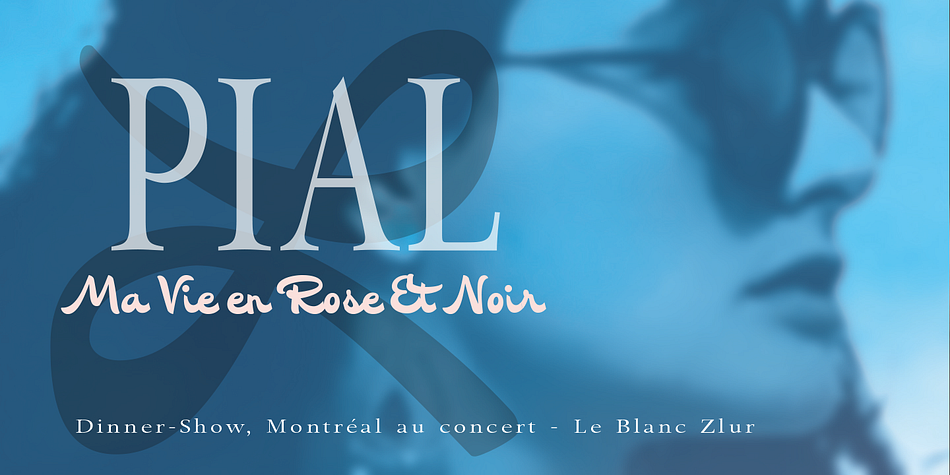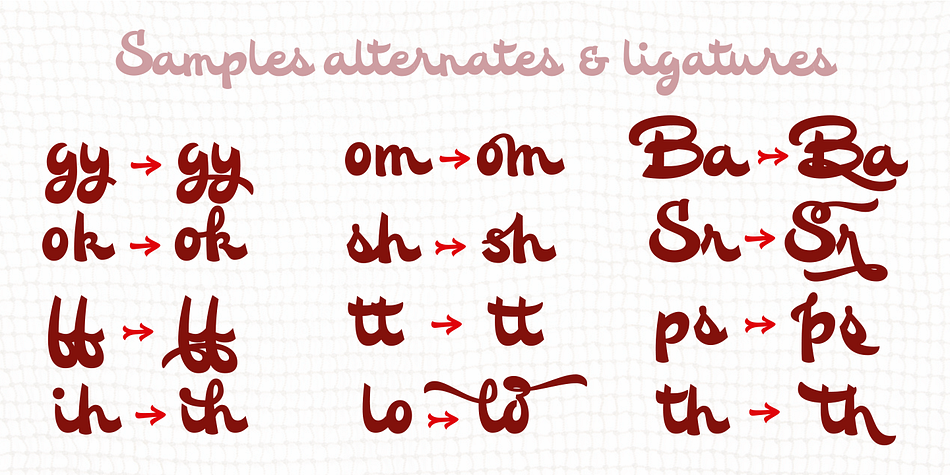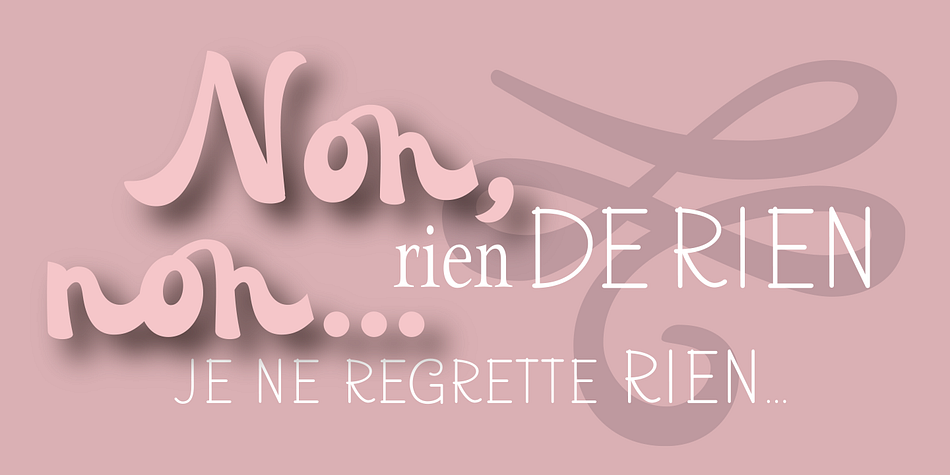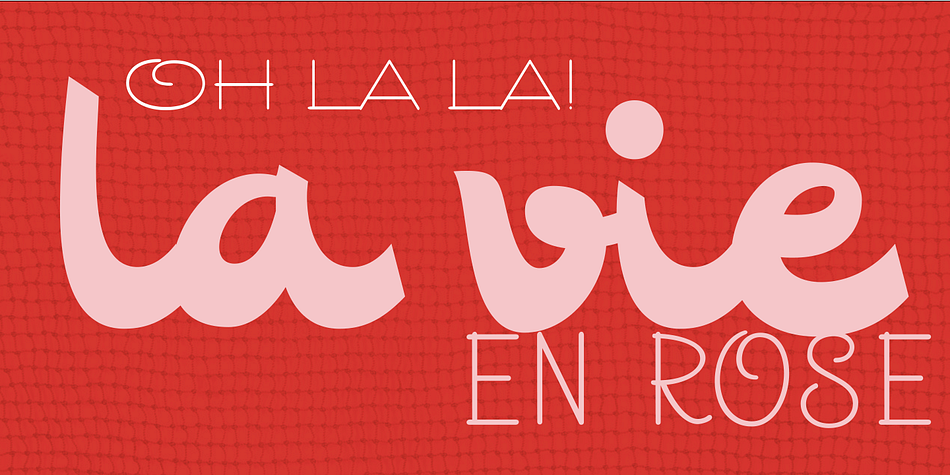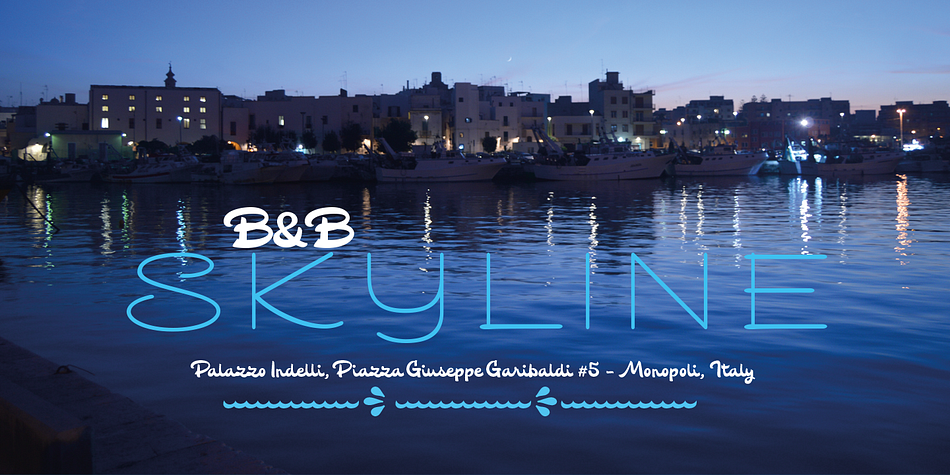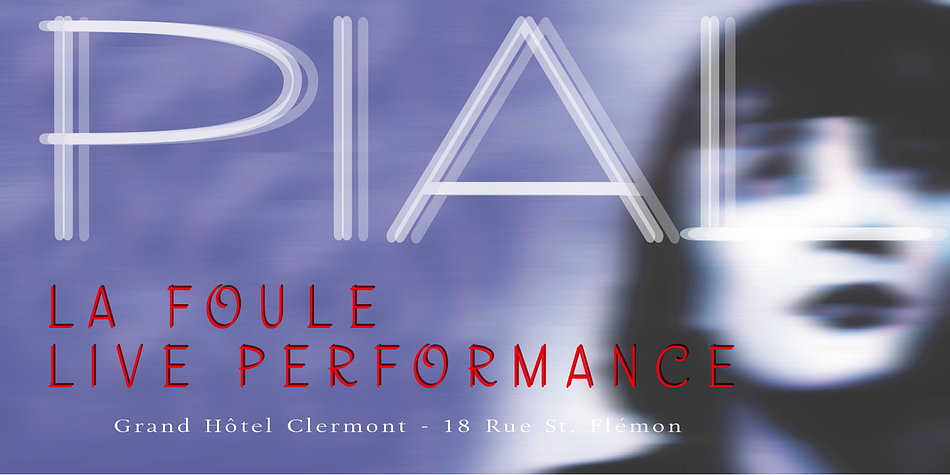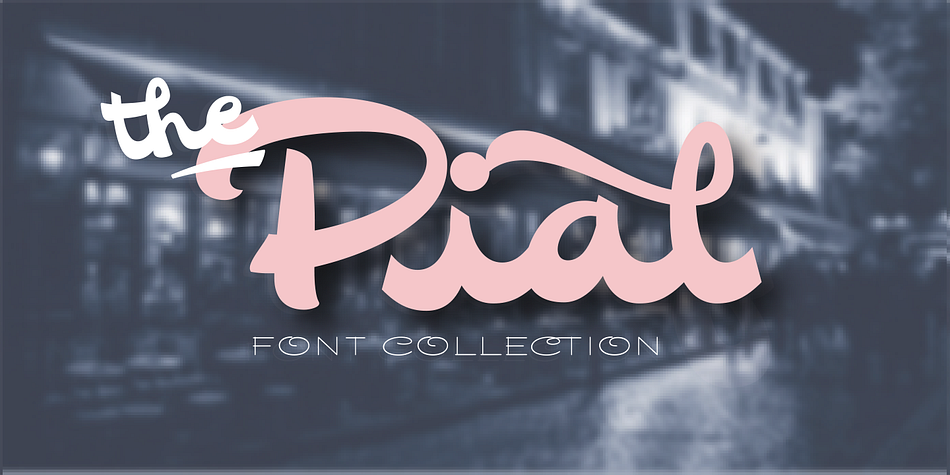
Designed by Carine de Wandeleer, Pial is a multiple classification font family. This typeface has six styles and was published by Eurotypo.
Pial fonts Family includes: Pial Regular that is totally hand-designed, casual and youthful, with lines that sometimes swell extremely, contain 546 glyphs with many stylistic variations, swashes and ligatures.
Pial Sans Regular and Expanded, also hand-designed, and Pial Serif Regular and Condensed to add a little seriousness. We have added also, a font of ornaments, extras and catchwords in the family. Using this font you will achieve a very elegant and warm work. Pial Family is very versatile and ideal for logotype design, magazines and book covers, children’s material, fashion, headlines, cards, posters, websites, packaging and, basically, anywhere you want.